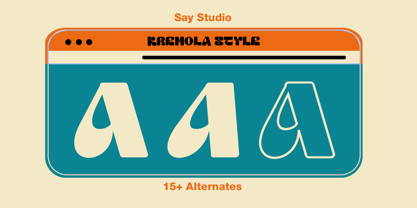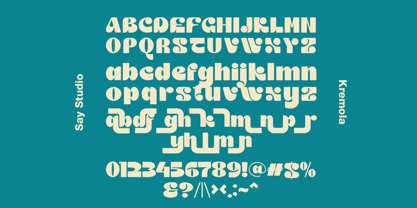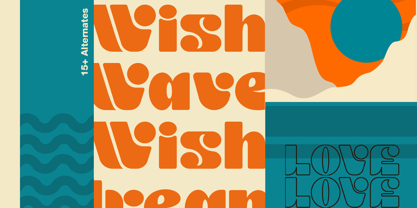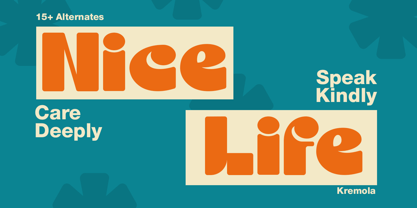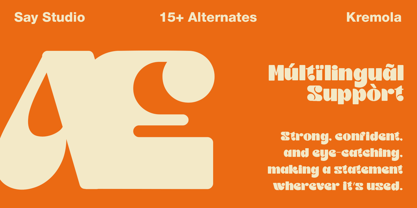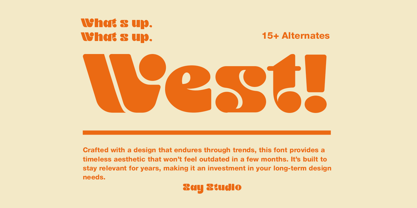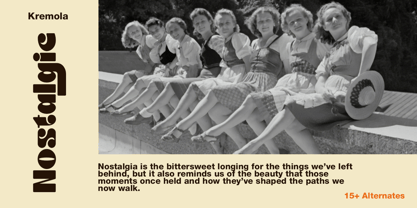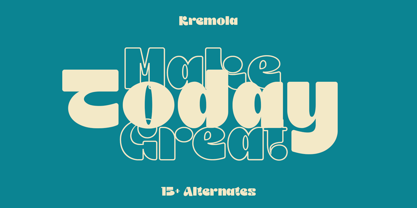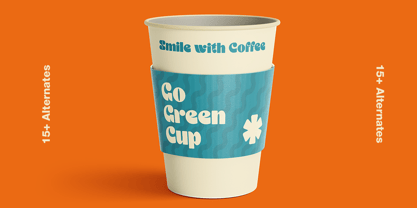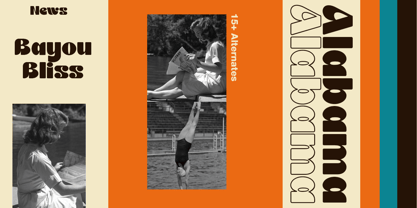
Kremola Outline
The Kremola Outline Font Family was designed by Ghina Luthfiarieska and published by Font Liner. Kremola Outline contains 3 styles and family package options. More about this family
Kremola - display sans font with 3 styles regular, italic, outline and 15 stylistic alternates. Perfect for creating logos, greeting cards, posters, packaging and more! Its charming and warm character will help you give your projects a truly unique feel.
Carefully and lovingly designed and kerned for easy use.